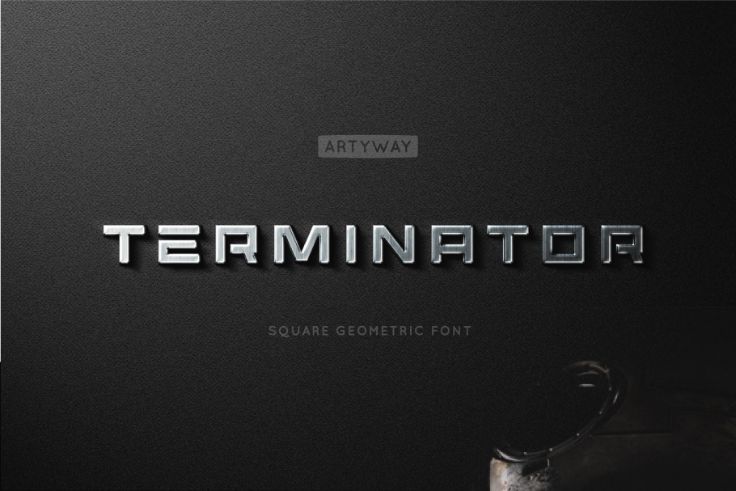
Strict geometry, bold lines, and a confident presence. Pixelo presents the Terminator Font Family — a free, powerful display typeface that packs a dynamic, masculine attitude. It shines especially when paired with metallic gradients and works beautifully for technological and innovative products.
Why you’ll like it
- Strong, geometric letterforms with a bold, assertive look
- Dynamic and confident — ideal for headlines, posters, logos, and branding
- Complements metallic gradients and high-contrast treatments
Best for
Technology brands, innovation-focused products, gaming, posters, packaging, and any design that calls for a powerful, modern display font.